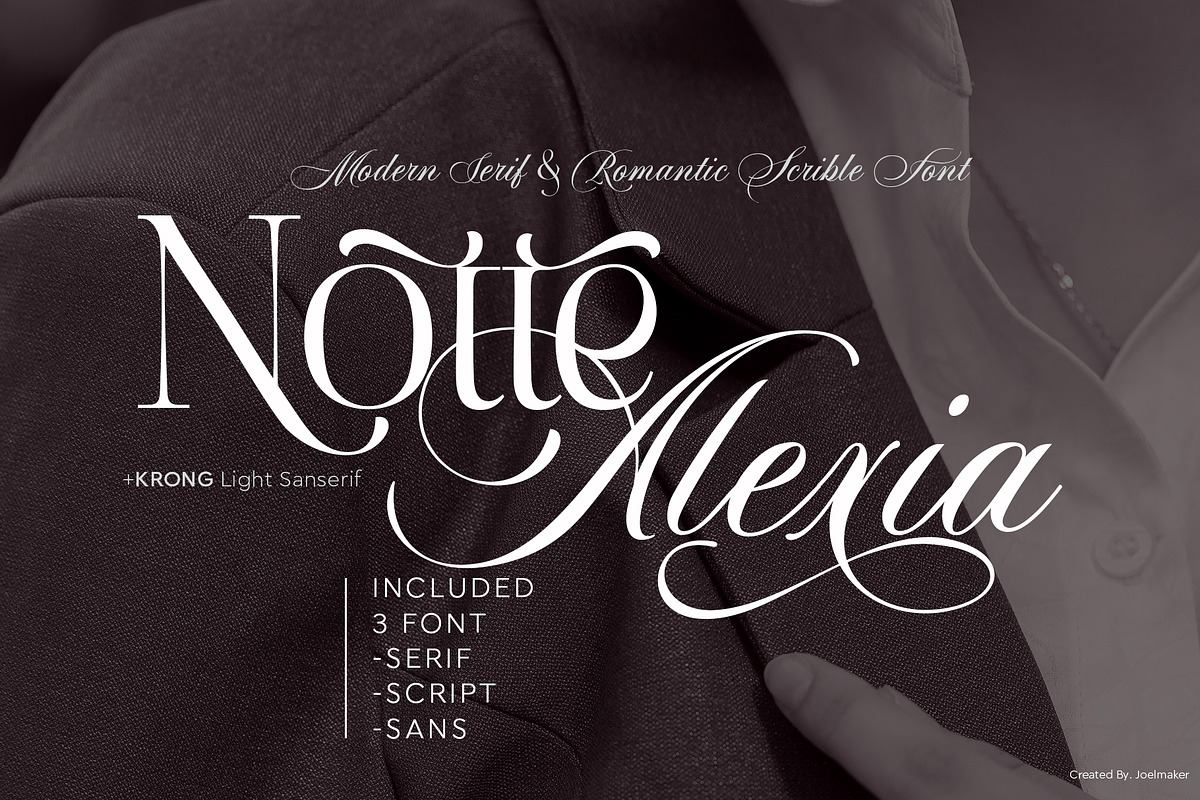
Notte Alexia Font Free Download is a modern and elegant serif typeface designed with clean lines and sophisticated details. It combines contemporary style with classic refinement, making it perfect for high-end branding, logos, editorial layouts, invitations, and luxury design projects. The smooth transitions between thick and thin strokes add a timeless elegance that works well in both display and body text.
Whether you're working on upscale marketing materials, a formal event invitation, or a stylish logo, Notte Alexia adds a touch of class and professionalism to your designs.